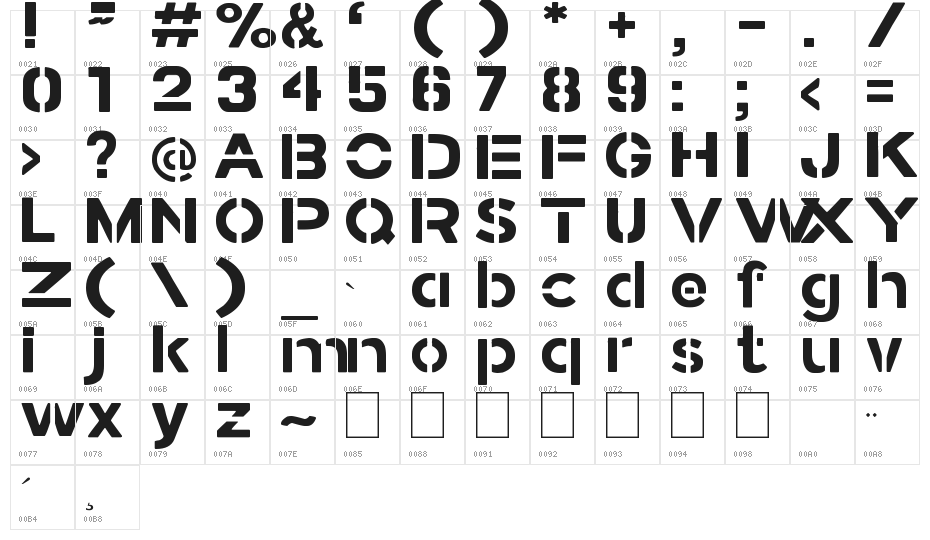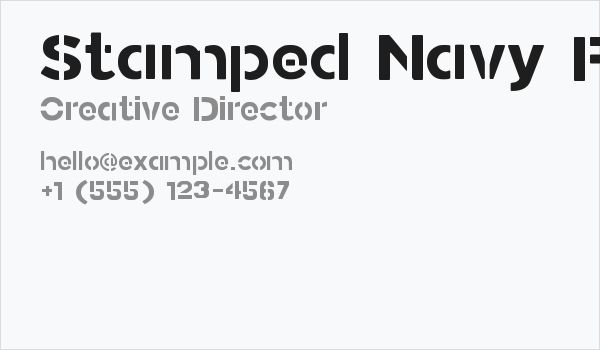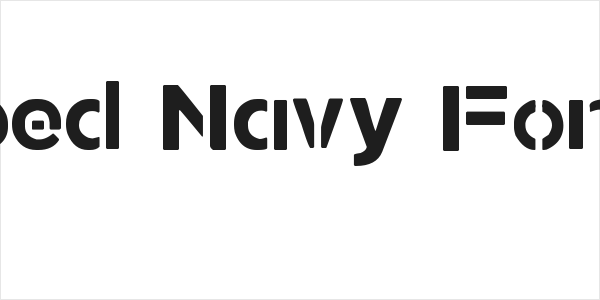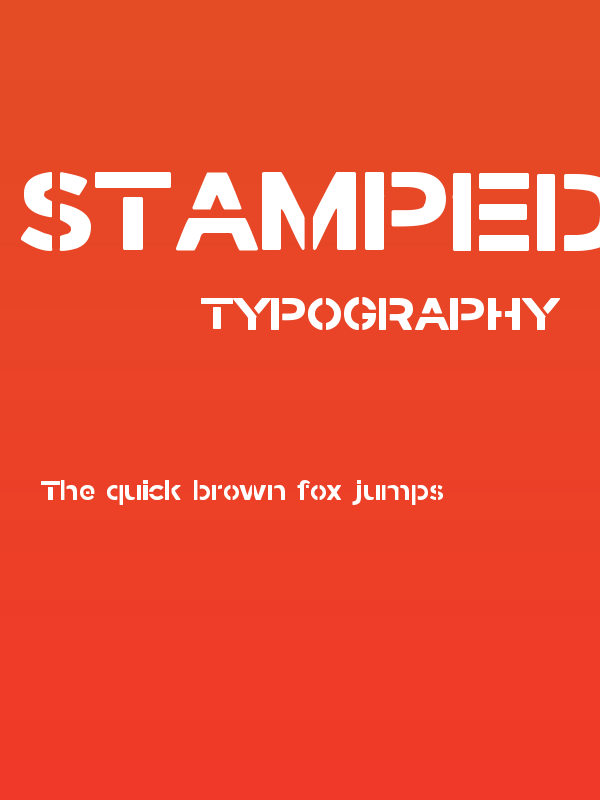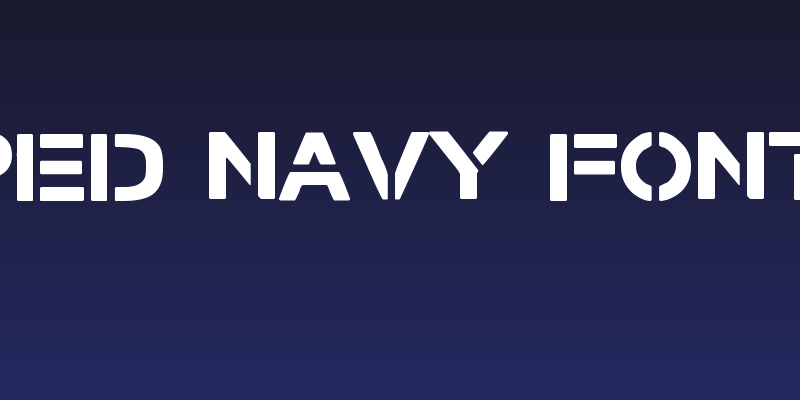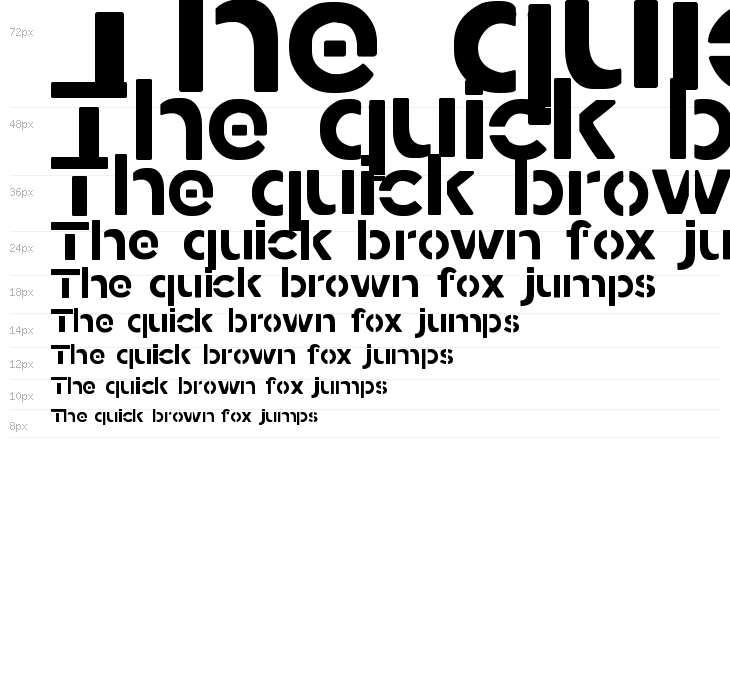
Stamped Navy Font Bold Font
Stamped Navy Font Bold Description
This font features a bold, geometric design with a distinct stencil-like appearance. The characters are constructed with clean, sharp edges and consistent stroke widths, creating a modern and industrial feel. The uppercase and lowercase letters maintain a uniform height, enhancing readability while adding a unique aesthetic. The numbers and special characters follow the same design principles, ensuring a cohesive look across all elements. The font's boldness and structured form make it ideal for impactful visual communication.